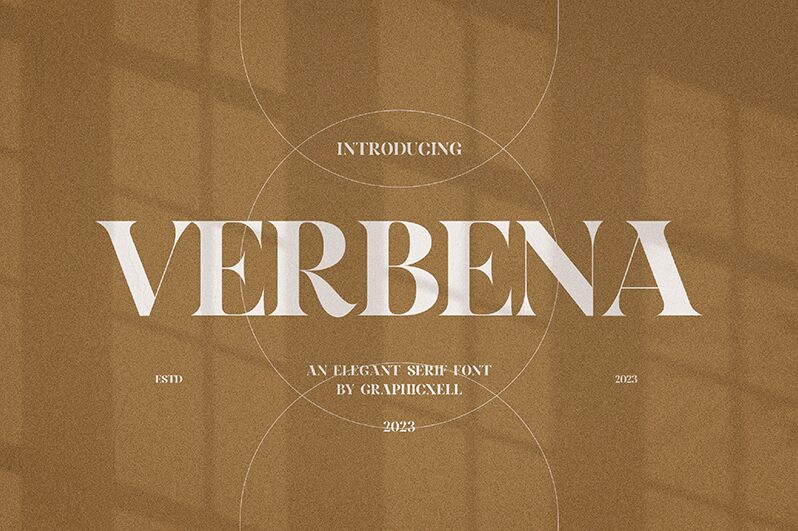
Verbena font by Graphicxell is a free serif font that takes inspiration from classic, sophisticated older typefaces while adding a modern and elegant contemporary appeal. Each character is carefully shaped with strong lines and sharp edges, resulting in a visually impactful typeface that conveys a refined aesthetic. It is bold, eye-catching, and unique enough to make designers fall in love with its presence as a significant part of their artwork whether displayed in a large or small size.
This font is a versatile choice to utilize in branding, project headings, poster titles, advertisement text, on greeting cards, and even on stationery items. It is an excellent addition to editorial layouts such as magazines and newspapers as it’s fit for both small texts and titles. Use it in web design, on product packaging, and across platforms to complete any sought-after look for a straightforward and modern style.